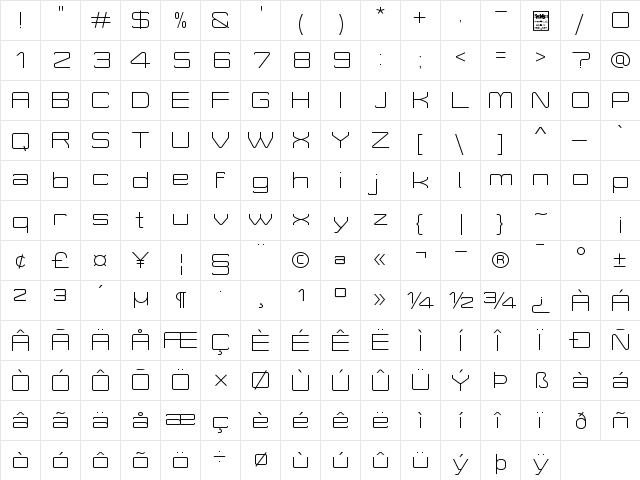
Move-X Light Font Preview
Move-X Light
Move-X Light Font Details
Design Context for Move-X Typeface
Move-X is a composed and adaptable typeface that performs quietly and consistently across a wide range of design contexts. The delicate stroke weight brings airiness and refinement to layouts.